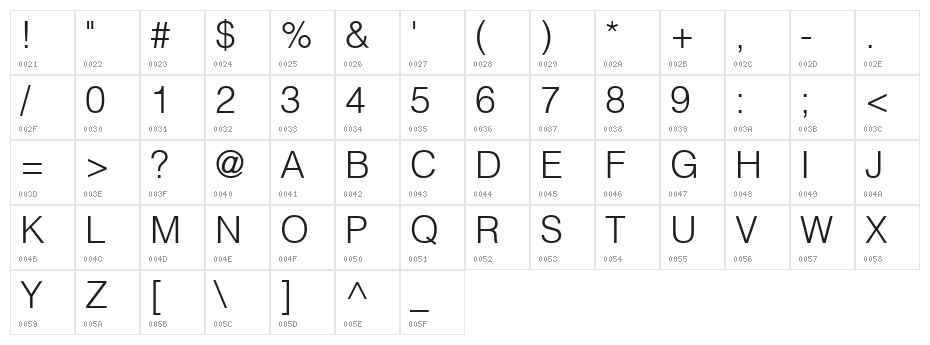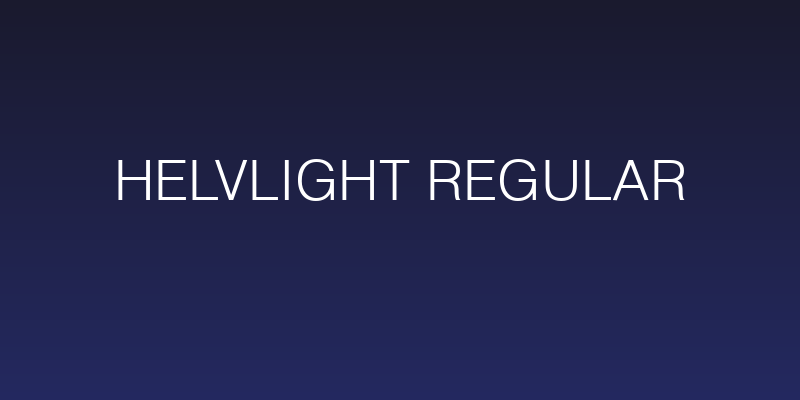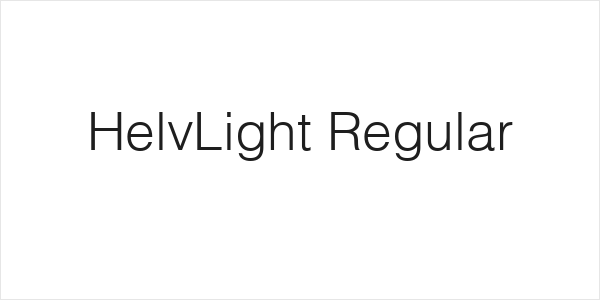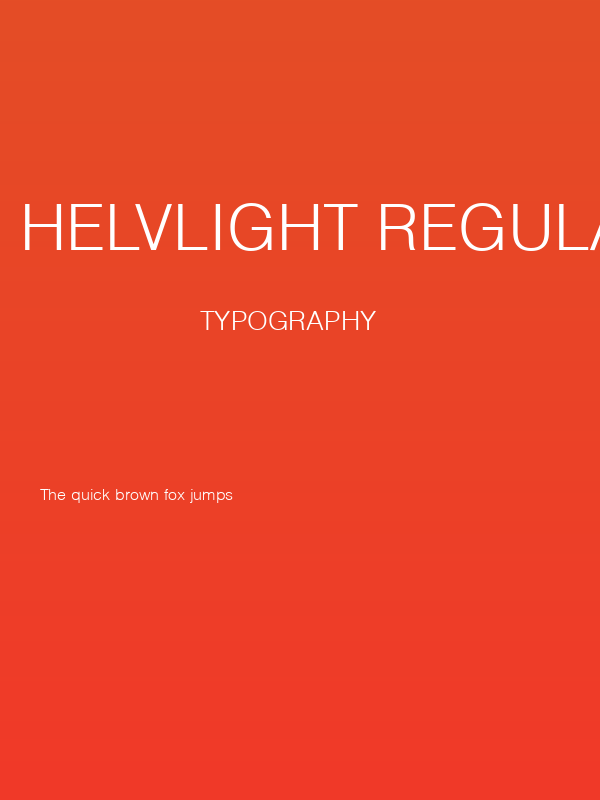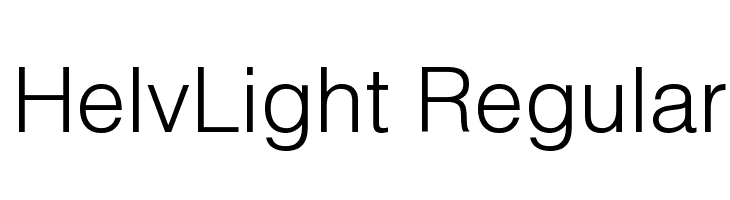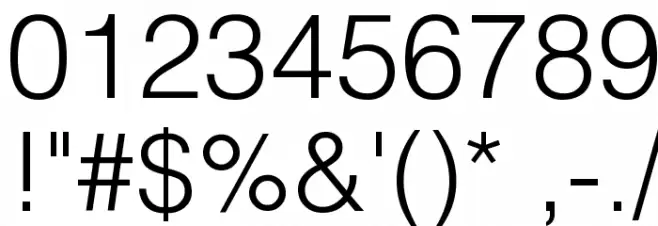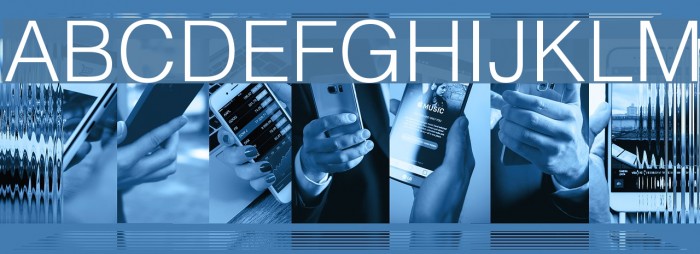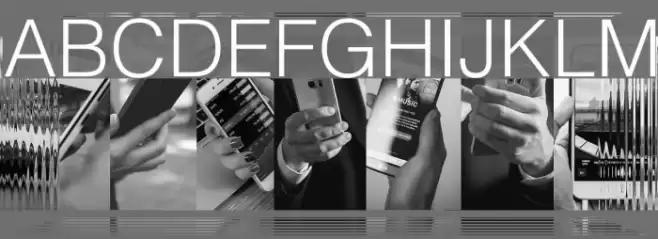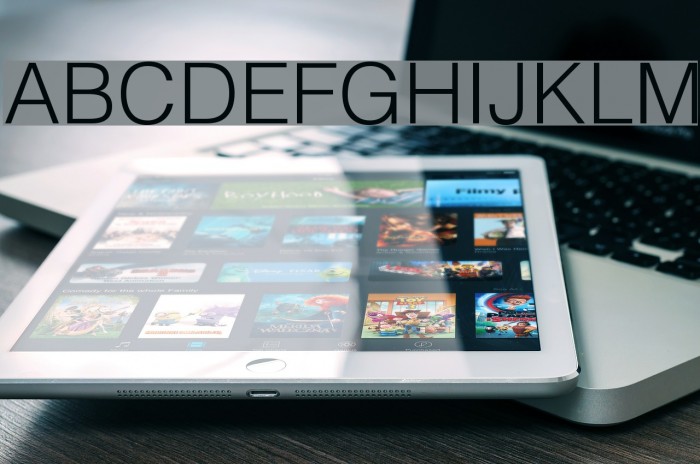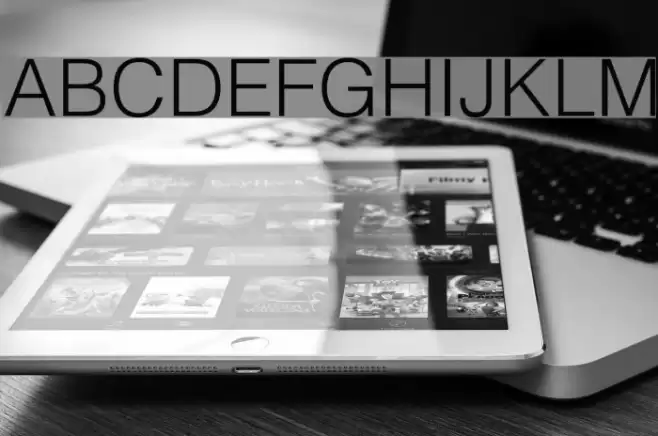
HelvLight Regular Font
HelvLight Regular Description
This font is a clean and modern sans-serif typeface characterized by its simplicity and clarity. The letters are evenly spaced with a consistent stroke width, providing a balanced and harmonious appearance. The uppercase and lowercase letters are well-proportioned, making it highly legible at various sizes. The numerals are straightforward and align well with the overall aesthetic. Special characters are designed to blend seamlessly with the alphabet, maintaining the font's minimalist style. This typeface is versatile, suitable for both digital and print media, and works well in a variety of design contexts.
| Use Case | Headlines, Body text, Logos |
| Proposed Projects | Ideal for branding, web design, corporate materials, and editorial layouts. |